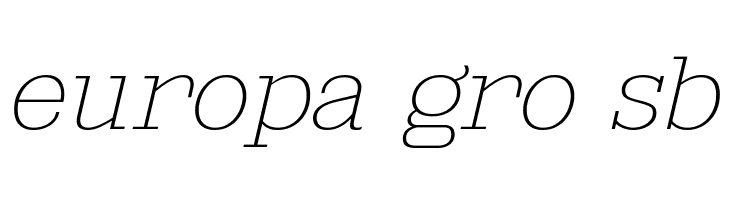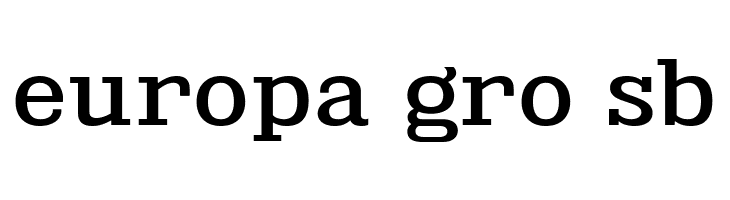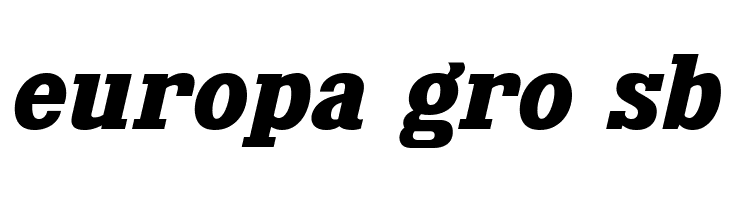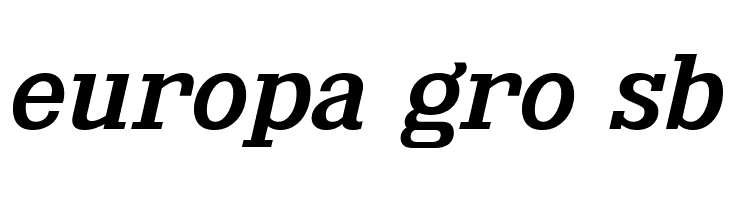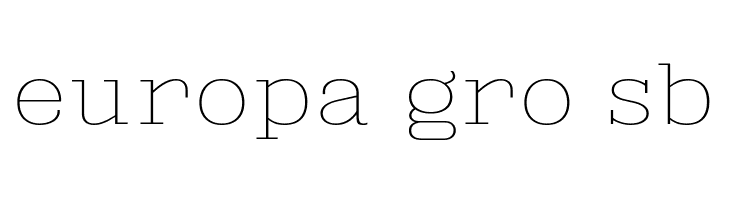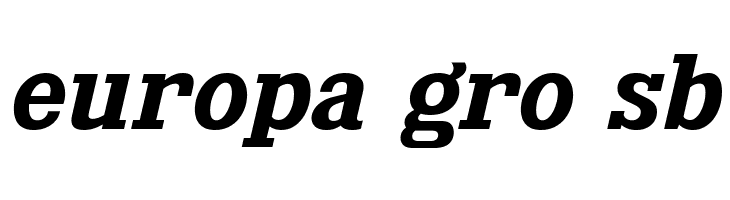
An elegant serif italic font with moderate contrast and refined details.
A classic serif font with elegant strokes and refined proportions.
A bold serif font with strong strokes and pronounced serifs, ideal for impactful designs.
A bold, italicized font with strong strokes and a dynamic slant.
A classic serif font with elegant italic styling and high contrast strokes.
A classic serif font with bold strokes and a traditional aesthetic.
A bold, italic serif font with strong character definition and elegant serifs.
A bold, slab serif font with a classic yet modern appeal.
An elegant, italic typeface with thin, graceful strokes and a modern style.
A clean, modern font with geometric structure and minimal contrast.